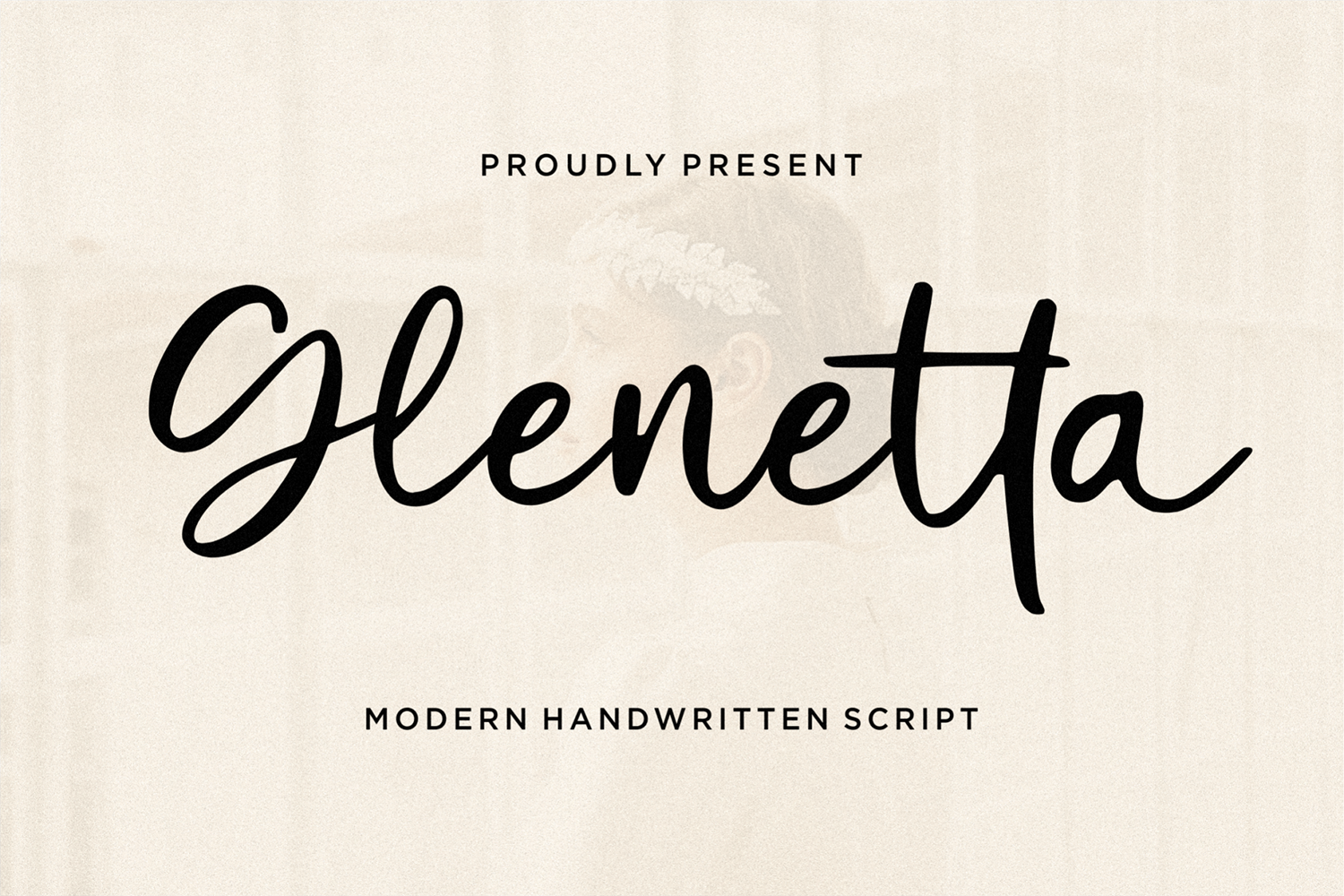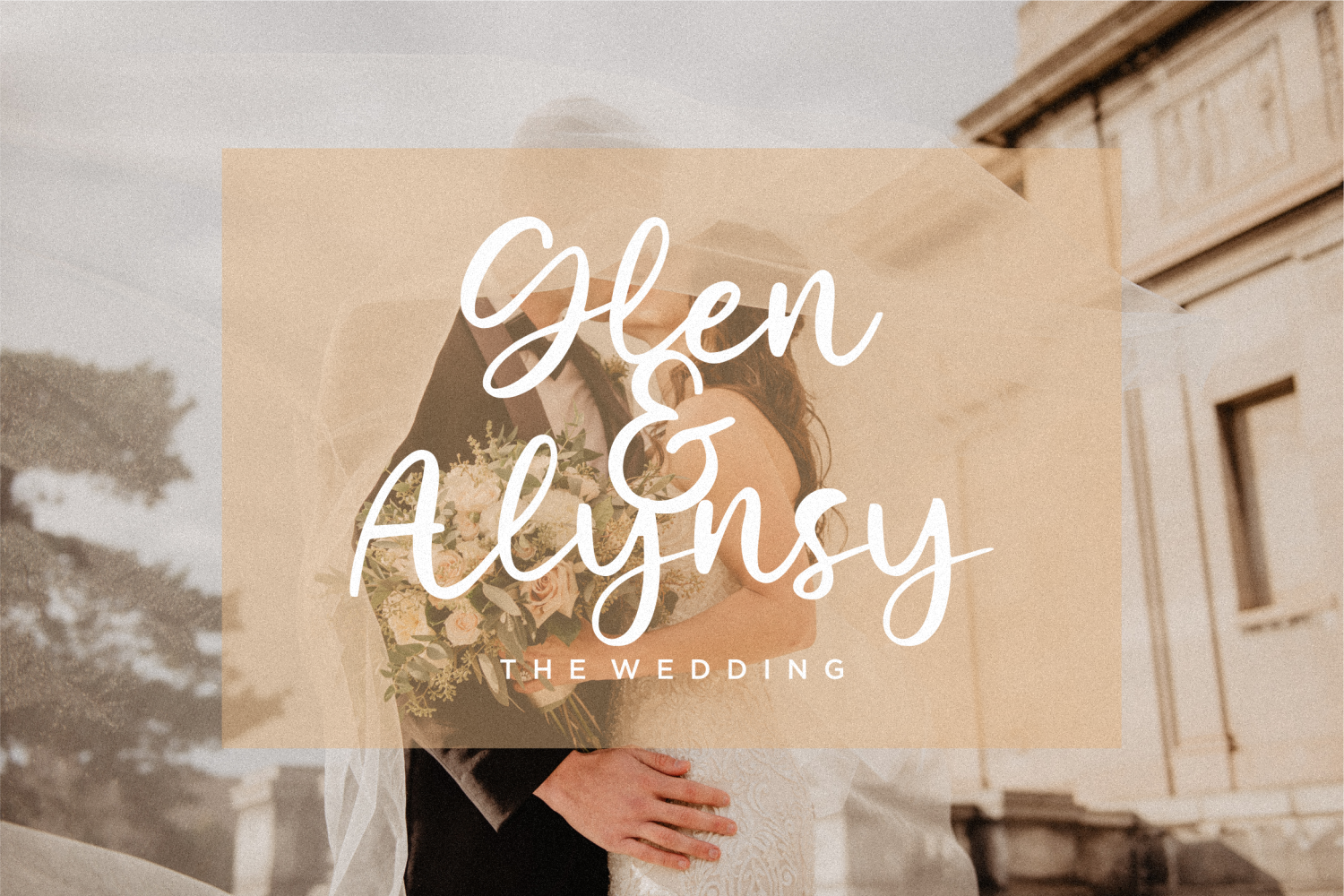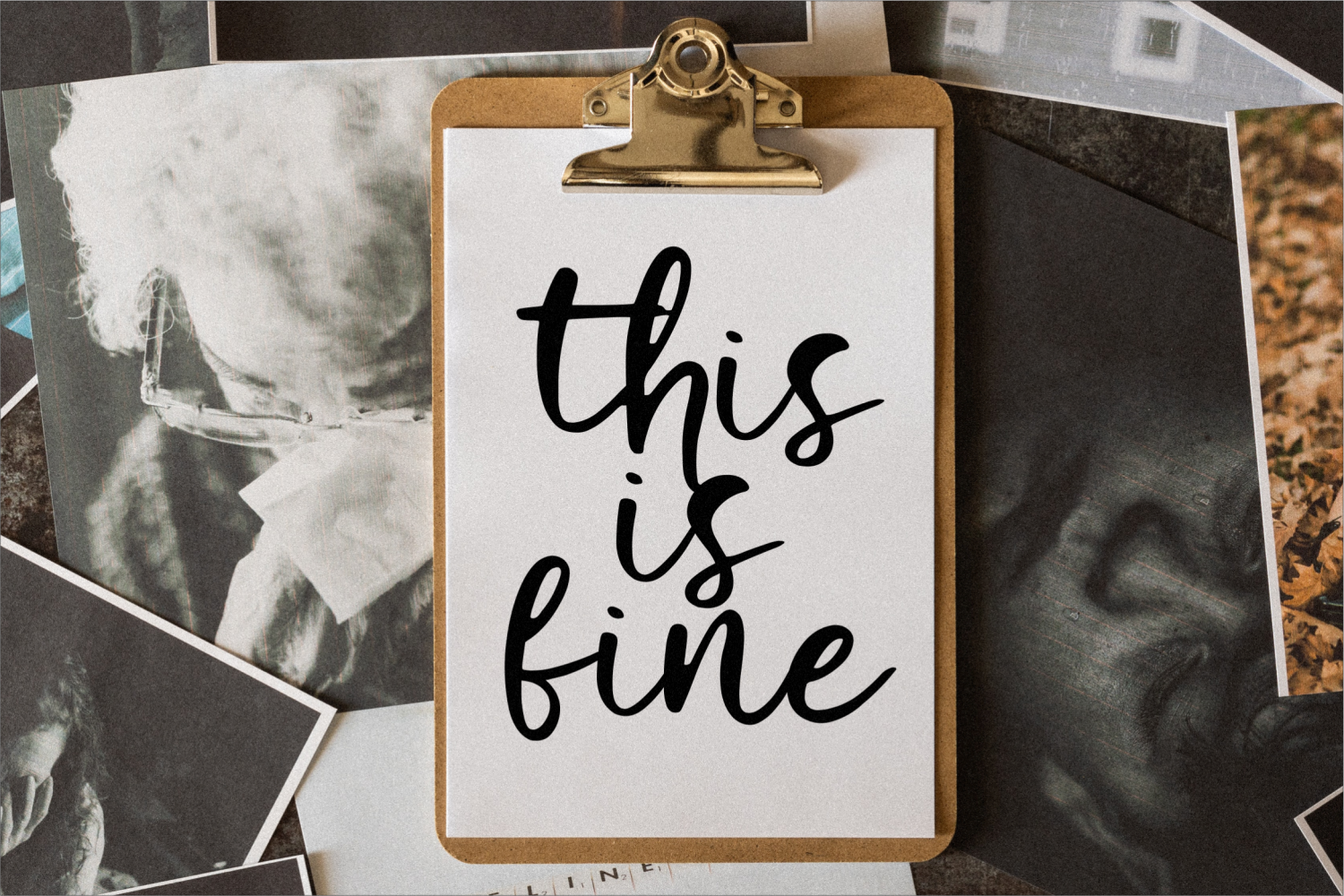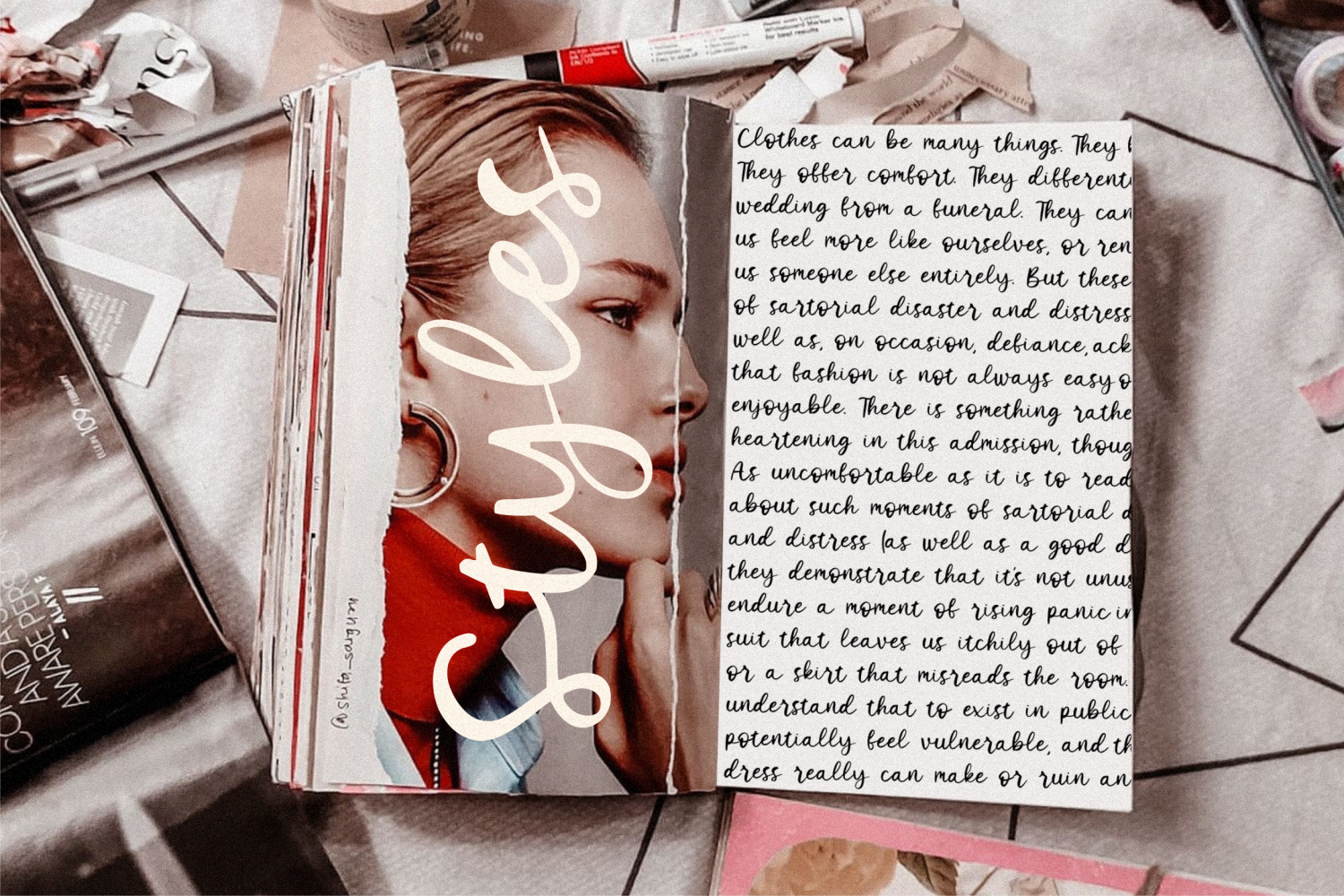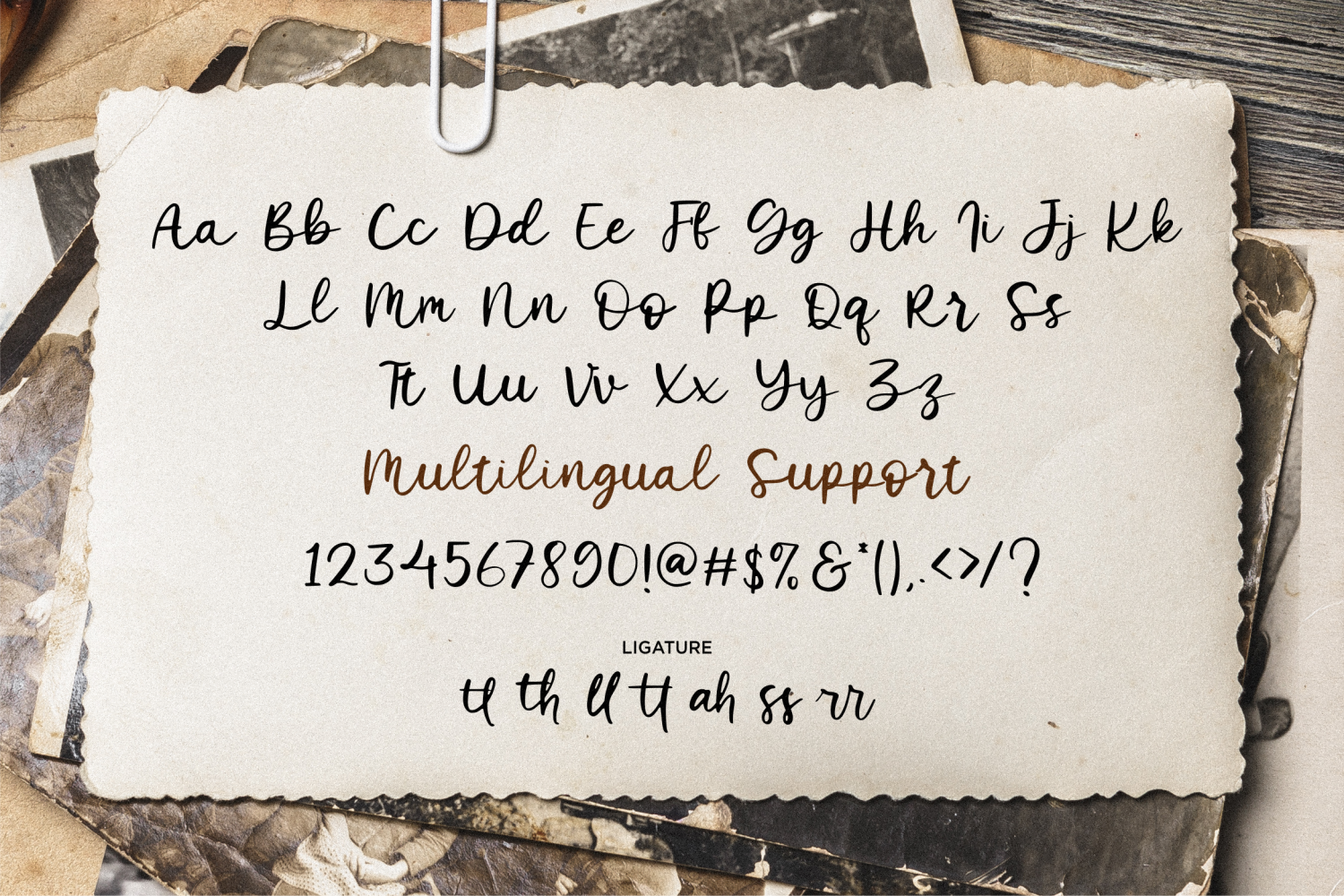
Glenetta Free Font
Introducing Glenetta Free Font: a captivating handwritten typeface with enchanting appeal! This versatile script font offers a wide array of uses, spanning from charming greeting cards to eye-catching headlines. It’s the perfect choice to infuse a romantic touch into your upcoming project, ensuring a memorable and heartfelt result. This free typeface was designed by a talented Qwrtype Foundry. If you like it don’t forget to check out the full version.